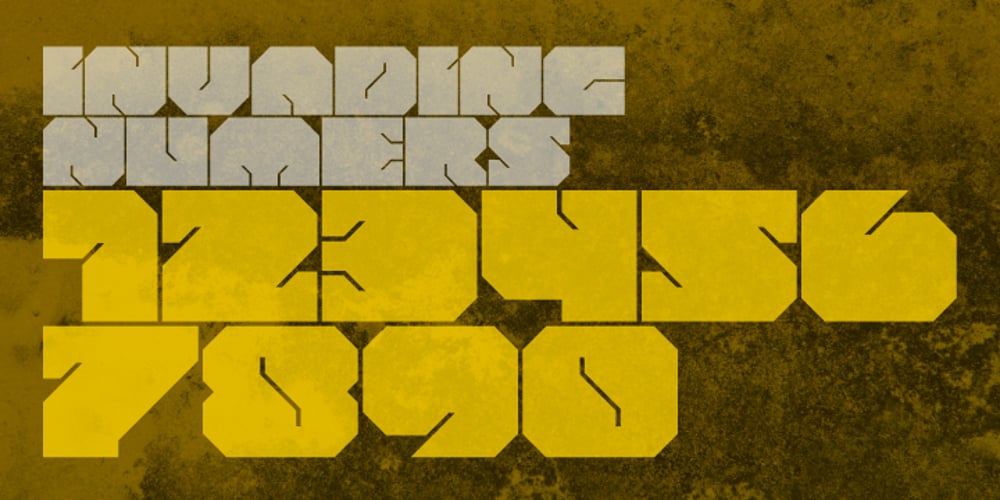
Invader
Invader font
Invader Font Family was designed by Gøran Frilstad and published by Yeahllow. Invader contains 1 styles and family package options. Invader is a display font designed specifically for display, headline, logotype and similar applications. It is not intended for text use or for use at small sizes.